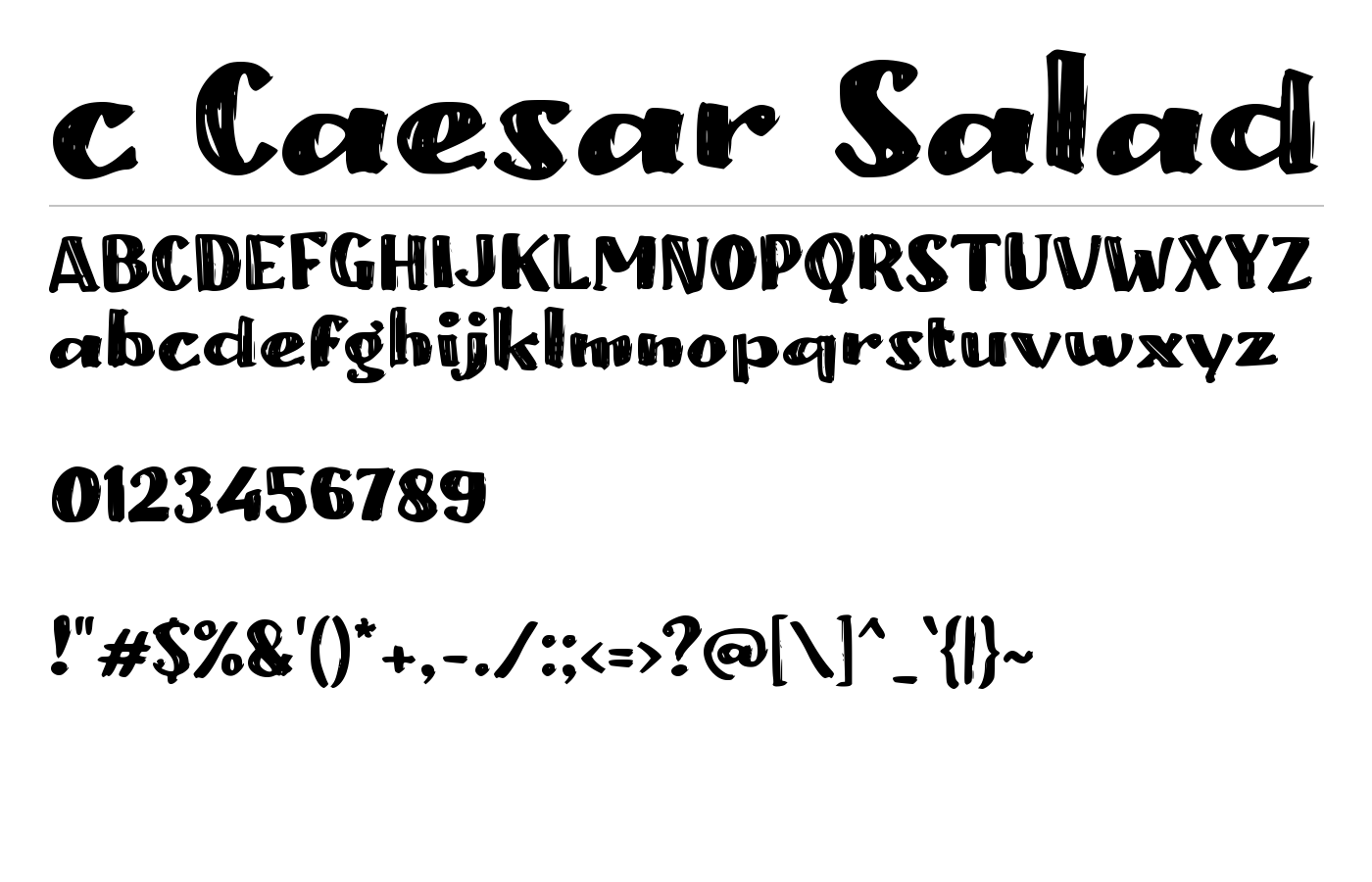
Caesar Salad is a bold and playful serif font with a hand-drawn, textured feel that gives it a lively and casual personality. Its high contrast strokes, quirky letter shapes, and irregular edges make it ideal for creative projects, packaging, headlines, and branding that seek a fun and approachable vibe without sacrificing readability. This font works well wherever a unique, friendly, and artistic touch is desired.
c Caesar Salad Font
About c Caesar Salad Font